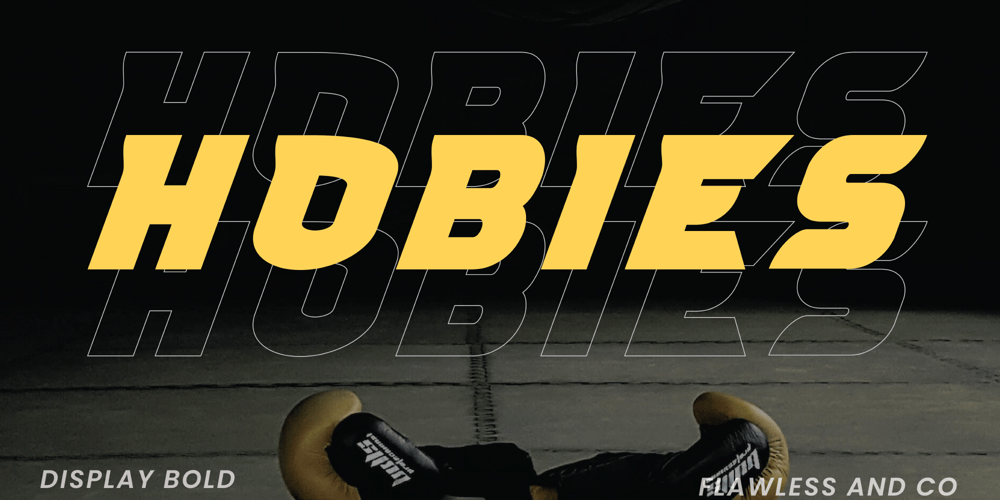
Hobies Font Family was designed by Achmad Yani and published by Flawlessandco. Hobies contains 2 styles and family package options. Introducing “Hobies” – a display font that combines firm boldness with a touch of uniqueness. With its strong and commanding letterforms, Hobies makes a bold statement, while its outline regular variant adds a distinctive edge to your designs.There’s some connected letters and some alternates that suitable for any graphic designs such as branding materials, t-shirt, print, business cards, logo, poster, t-shirt, photography, quotes .etcThis font support for some multilingual. Also contains uppercase A-Z and lowercase a-z, alternate character, numbers 0-9, and some punctuation.If you need help, just write me! Thanks so much for checking out my shop!